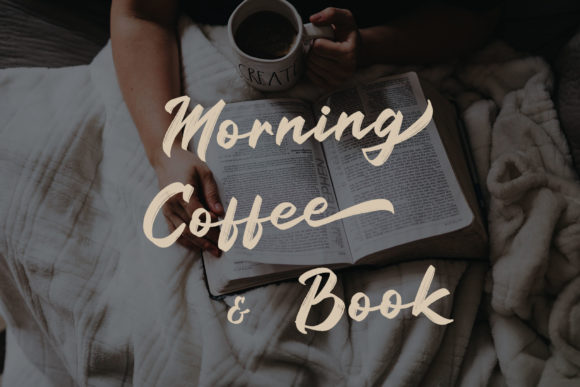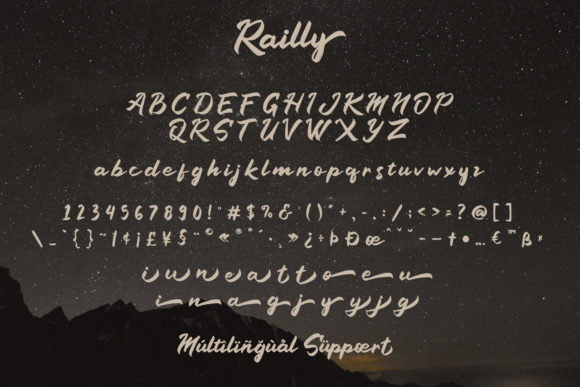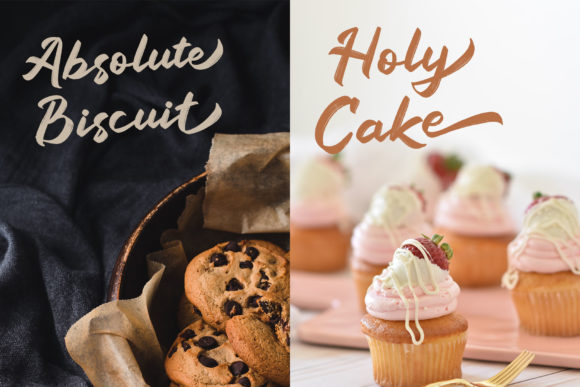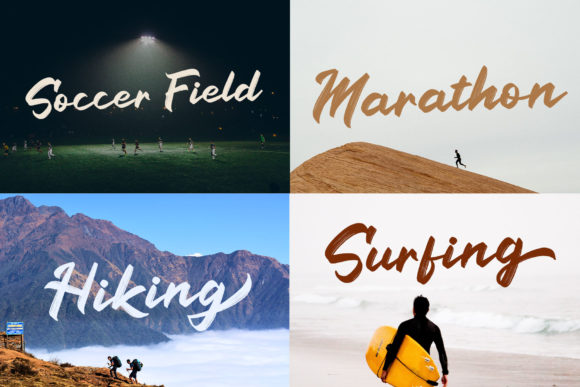
Introduction to Railly Font
Railly is based on real handwriting, which gives this unique font an incredibly authentic vibe.
Railly is based on real handwriting, which gives this unique font an incredibly authentic vibe!
Key Features of Railly Font
Why Choose Railly Font?
Railly Font offers exceptional quality and versatility, making it a valuable addition to your design toolkit. Whether you’re creating for personal projects or commercial use, Railly Font delivers professional results.